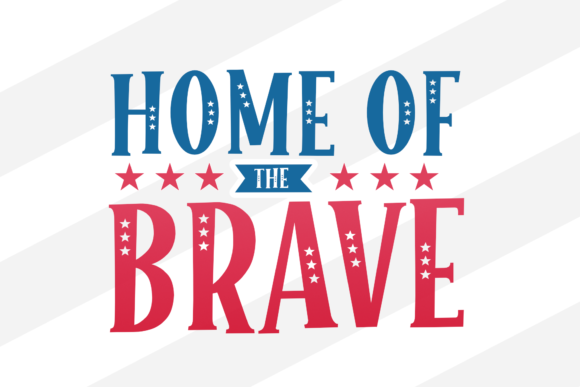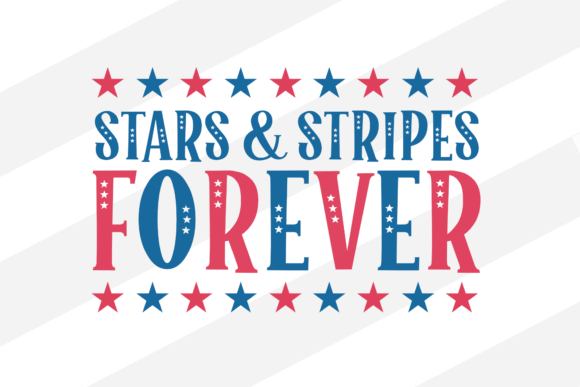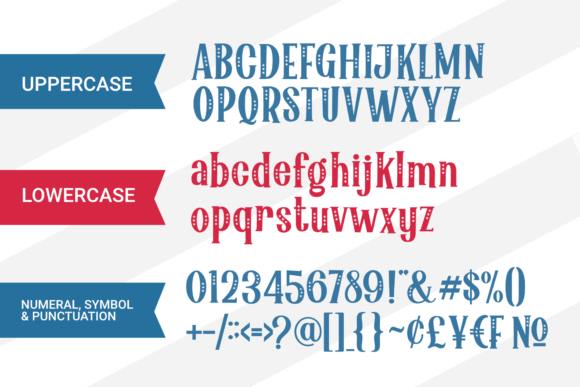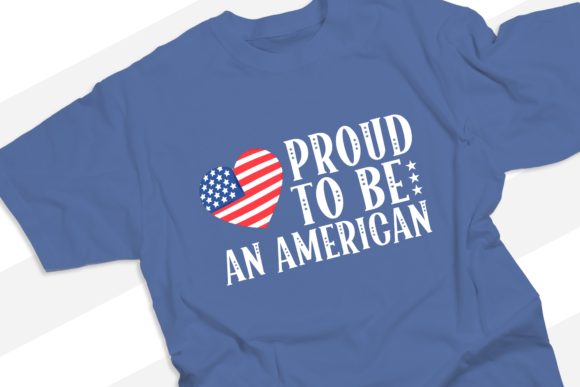
Introduction to Party Stars Font Font
Fonts play a crucial role in design, and the Party Stars Font font is a typeface that brings both character and versatility to any project. Whether you’re working on a branding project, a website, or a print design, the Party Stars Font font offers a unique style that can elevate your work.
Party Stars is a festive display font.
Use it to brighten up all your upcoming 4th of July crafting projects The only limit is your imagination.
The Party Stars Font font is more than just a typeface – it’s a design tool that helps you communicate your message with style and clarity. Its unique character set and versatile design make it suitable for a wide range of applications, from elegant invitations to bold headlines.
With its carefully crafted letterforms and balanced proportions, the Party Stars Font font ensures readability and visual appeal across all mediums.
The Party Stars Font font stands out with its unique design, exceptional readability, and versatility across various design applications.